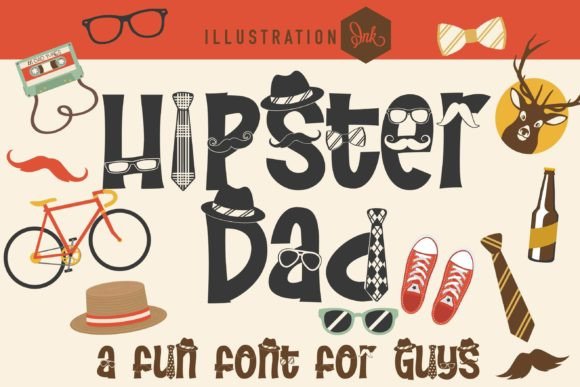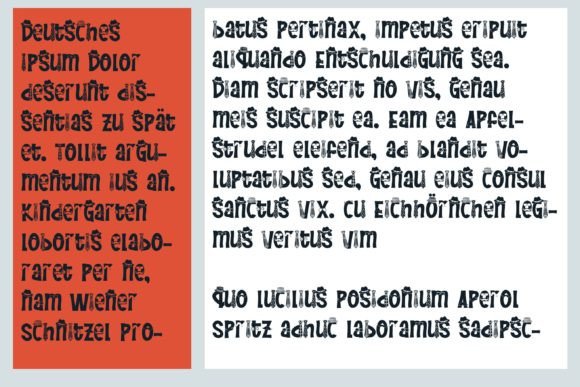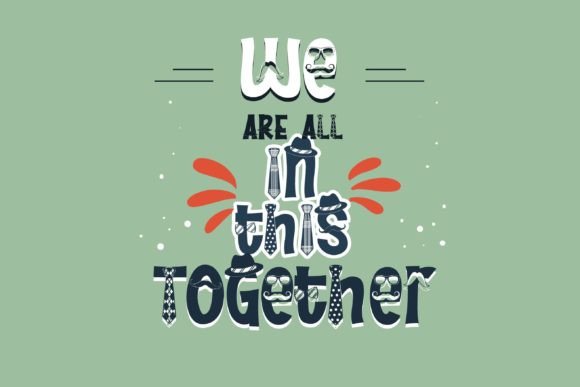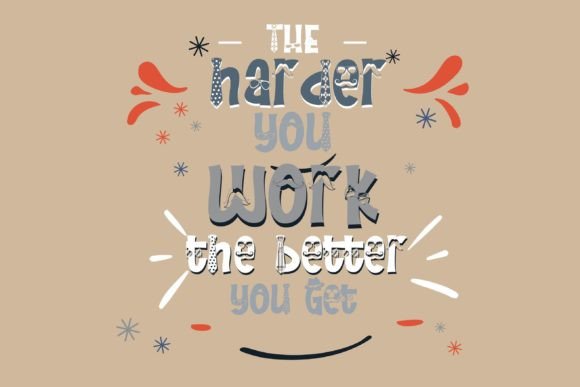
Hipster Dad Font: A Fun Display Font for Cricut & Craft Projects
About the Hipster Dad Font
Get ready to be inspired by Hipster Dad Font, a fresh and dynamic typeface for modern creators. Meet Hipster Dad, the coolest font in town! With its sans serif style, it’s like the dad of all fonts – simple yet stylish. Imagine it wearing hipster glasses, a fancy mustache, and a trendy hat, giving it that extra flair. It’s perfect for adding a touch of modern charm to your designs, making them stand out in a crowd. So, if you want your text to be as hip as Dad, look no further than Hipster Dad font!
Hipster Dad Font’s relaxed yet refined sans-serif style makes it ideal for headlines, logos, short-form marketing materials, and social media graphics. Its friendly personality works well for brands focusing on craft beer, artisanal coffee, or independent businesses with a casual, approachable vibe. Avoid using it for large blocks of body text or UI elements; its character is best showcased in concise, impactful applications.
Pairing Hipster Dad with a classic serif like Garamond for body copy creates a sophisticated contrast, while pairing it with a geometric sans-serif like Futura adds a modern, clean edge. A playful script font like Pacifico could also work well for supplementary text elements, adding a touch of vintage charm that complements the font’s inherent style.
Its overall personality is best described as approachable and stylishly understated; it conveys a sense of modern authenticity without being overly trendy or gimmicky.